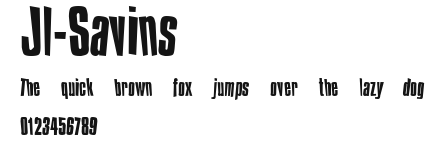
• Font Name: JI-Savins
• Full Font Name: JI-Savins
• Designer: JupiterImages
JI-Savins.ttf is a modern, elegant sans-serif font designed for ultimate readability and visual harmony. Perfect for branding, headlines, web design, and print materials.